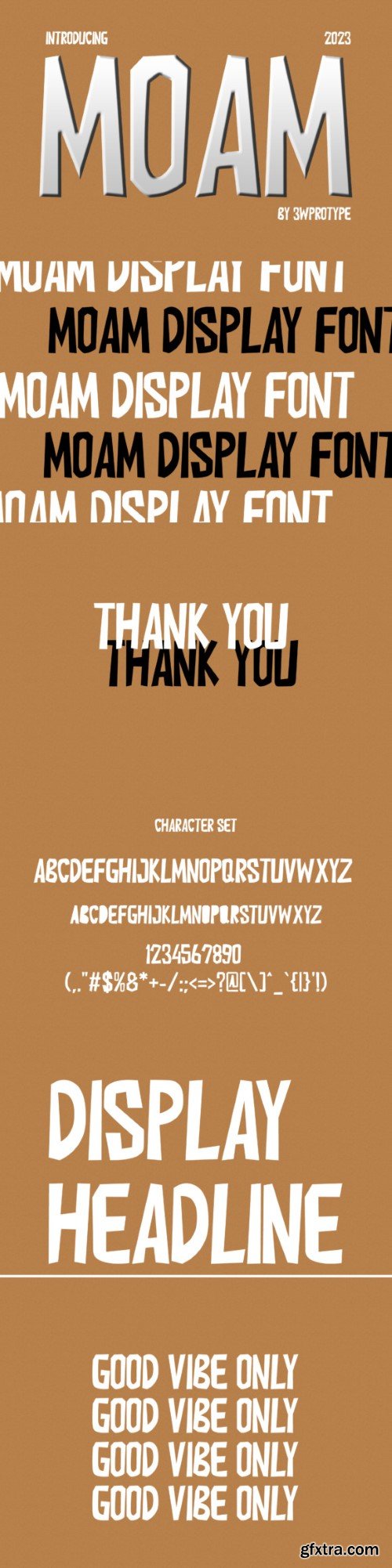
Introducing, Moam Display Font. Concise typeface is fun, and relaxed with natural handwriting. This type of font is very suitable to be applied especially for the needs of letters and logos, and various other formal forms such as invitations, labels, magazines, books, greeting/wedding cards, packaging, fashion, make up, stationery, novels, labels or any type of advertising purpose.